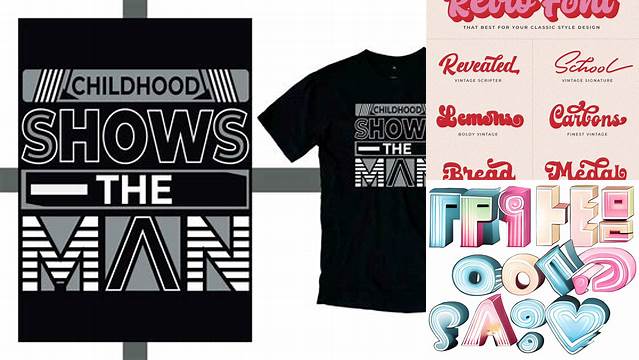
Cool Fonts: Where To Find The Best Downloads
Are you on the hunt for cool fonts downloads to inject some serious personality into your projects? Look no further! Fonts are the unsung heroes of design, capable of transforming a mundane document into a visual masterpiece. Whether you're crafting a website, designing a logo, or just jazzing up your social media posts, the right font can make all the difference. So, guys, let’s dive into the awesome world of fonts and explore how you can find and download the perfect ones to express your unique style.
Why Cool Fonts Matter
Fonts are way more than just letters; they're the voice of your design. Think about it: a playful, bubbly font screams fun and informality, while a sleek, sans-serif font projects modernity and professionalism. Choosing the right font is like picking the perfect outfit for an occasion. It sets the mood, conveys your message, and grabs attention.
In the realm of cool fonts downloads, there's a font for every purpose. Need to evoke a sense of nostalgia? Go for a vintage-inspired script. Want to appear cutting-edge? A geometric sans-serif will do the trick. The possibilities are endless! By carefully selecting fonts, you can create designs that not only look great but also resonate with your target audience. A well-chosen font can improve readability, enhance user experience, and ultimately, strengthen your brand identity. For instance, imagine a law firm using a Comic Sans font on their website – it simply wouldn't convey the seriousness and trustworthiness they need to project. Conversely, a children's brand using a very formal and rigid font might fail to connect with its young audience. The key is to understand the nuances of different fonts and how they contribute to the overall message and feel of your design. Therefore, the time you invest in finding and downloading cool fonts is an investment in the effectiveness and impact of your creative endeavors. So, don't underestimate the power of fonts; they are essential tools for visual communication and can significantly elevate your designs.
Top Tips for Choosing the Right Fonts
Finding cool fonts downloads is one thing, but selecting the right font for your project requires a bit more finesse. Here are some essential tips to guide your font-choosing journey:
- Consider Your Brand: Your font should align with your brand's personality and values. A playful brand might opt for a whimsical font, while a sophisticated brand might choose a classic serif.
- Think About Readability: A beautiful font is useless if it's illegible. Ensure that your chosen font is easy to read, especially for body text. Avoid overly decorative or complex fonts for large blocks of text.
- Use Font Pairing Wisely: Combining different fonts can create visual interest, but it's easy to go overboard. Stick to two or three fonts at most, and choose fonts that complement each other. A common strategy is to pair a serif font with a sans-serif font.
- Test Your Font: Before committing to a font, test it out in different sizes and contexts. See how it looks on different devices and browsers. Pay attention to kerning (the spacing between letters) and adjust as needed.
- Don't Overuse Special Effects: Resist the temptation to add excessive shadows, gradients, or other effects to your font. Simplicity is often the key to elegance. A clean, well-designed font will always look more professional than a heavily stylized one.
Also, when searching for cool fonts downloads, remember that trends come and go. While it's tempting to use the latest trendy font, consider whether it will stand the test of time. Classic fonts are often a safer bet, as they are timeless and versatile. Moreover, be mindful of the cultural context of your font. Some fonts may have different connotations in different cultures. For example, a font that is considered elegant in one culture may be perceived as old-fashioned in another. Finally, don't be afraid to experiment with different fonts until you find the perfect one for your project. Font selection is a creative process, so have fun and trust your instincts. After all, the best font is the one that effectively communicates your message and enhances your design.
So, whether you're designing a killer logo, crafting eye-catching social media graphics, or just trying to make your documents look a little more polished, the right font can make all the difference. Happy font hunting, guys! Have fun, be creative, and let those fonts speak volumes!